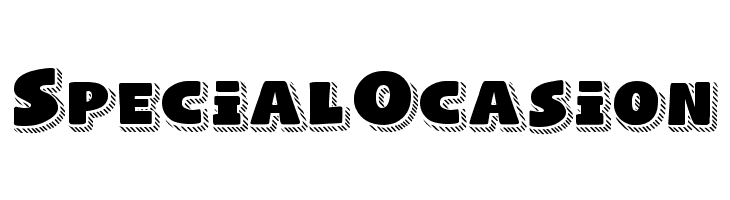
A bold, shadowed font with a playful, comic book style.
A bold, shadowed font with a playful, three-dimensional style.
A bold, decorative font with diagonal stripes and shadowed outlines.